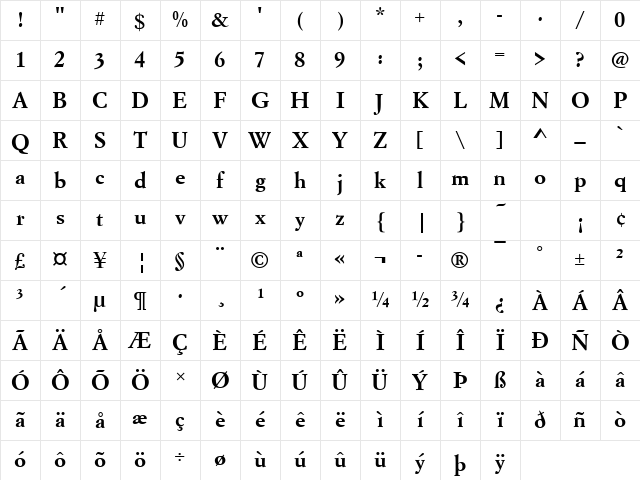
GaramondNo9TMed Regular Free Font
GaramondNo9TMed Regular
Design Context for GaramondNo9TMed
GaramondNo9TMed is a composed and adaptable typeface that performs quietly and consistently across a wide range of design contexts.